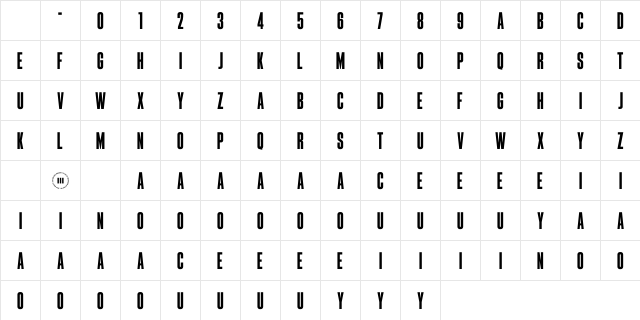
Complete HighriseDemo Regular glyph index. Displaying only characters natively supported by HighriseDemo Regular font.
HighriseDemo is a composed and adaptable typeface that performs quietly and consistently across a wide range of design contexts.